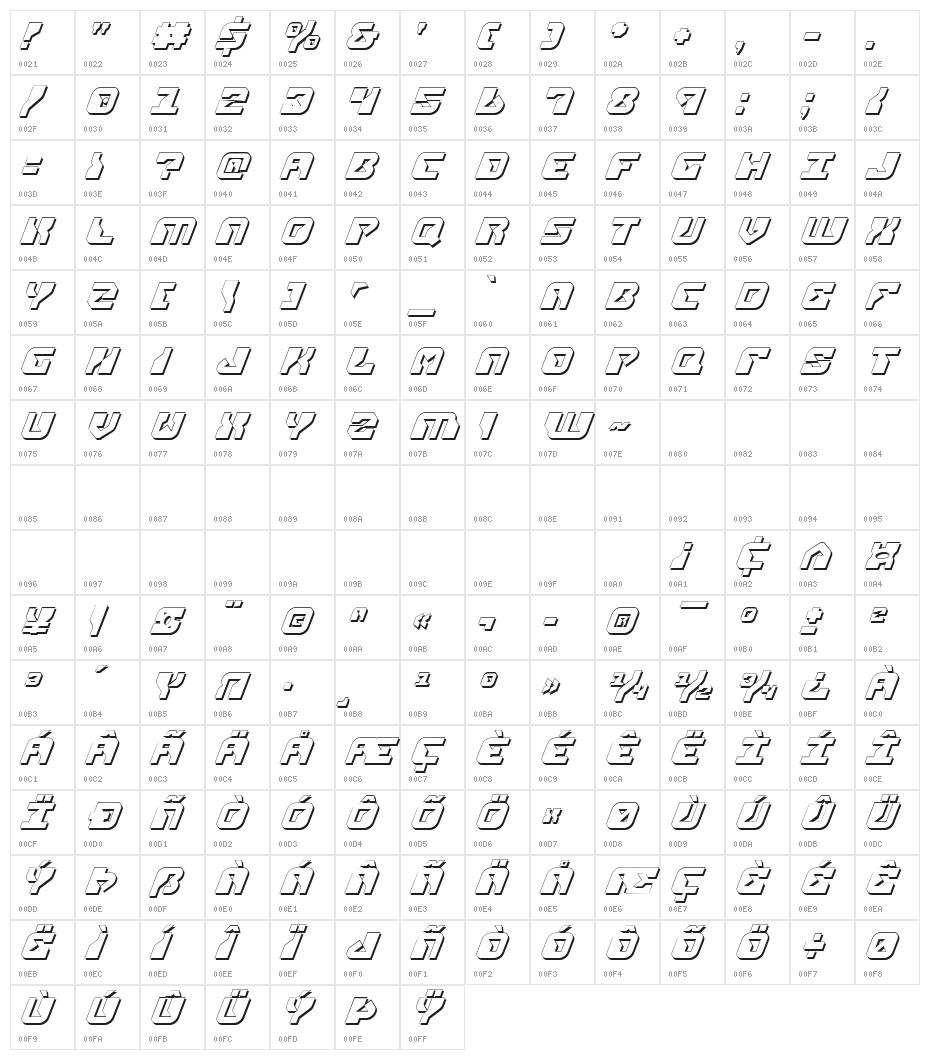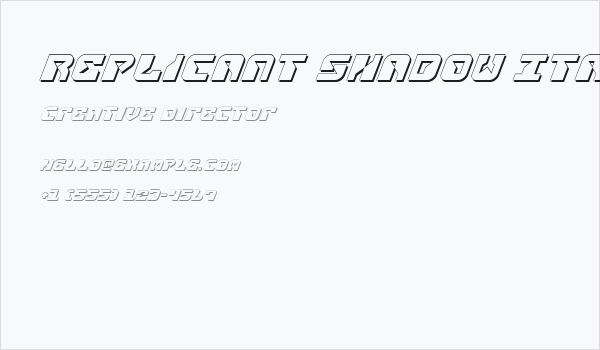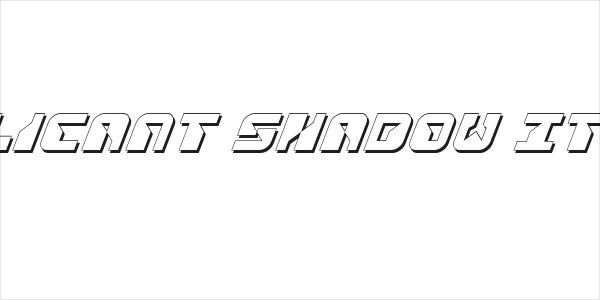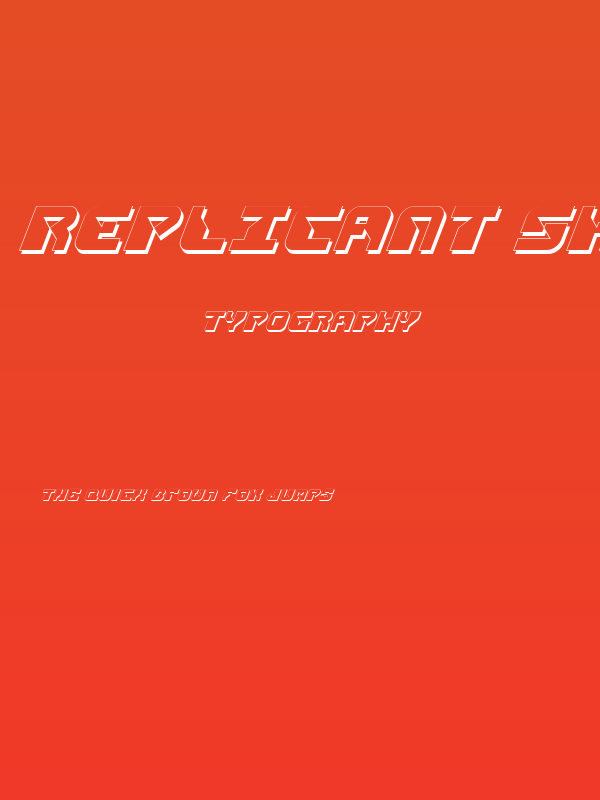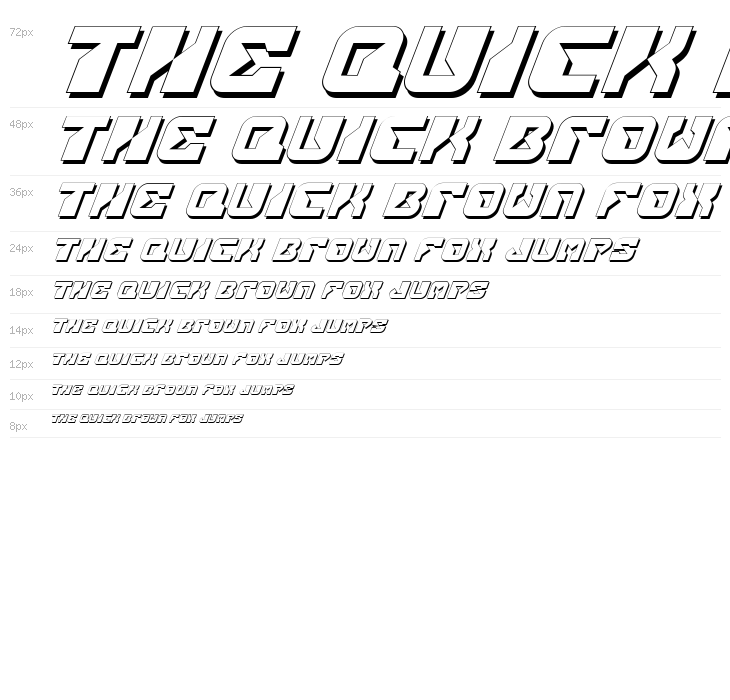
Replicant Shadow Italic Font
Replicant Shadow Italic Description
This font features a bold, futuristic design with a distinct shadow effect that gives it a three-dimensional appearance. The characters are angular and geometric, with sharp edges and a consistent italic slant that adds a dynamic feel. The uppercase and lowercase letters maintain a uniform style, while the numerals and special characters complement the overall aesthetic. The shadow effect enhances the depth and visual interest, making it suitable for eye-catching designs.
| Proposed Projects | Ideal for sci-fi themed projects, video game titles, movie posters, and technology branding. |